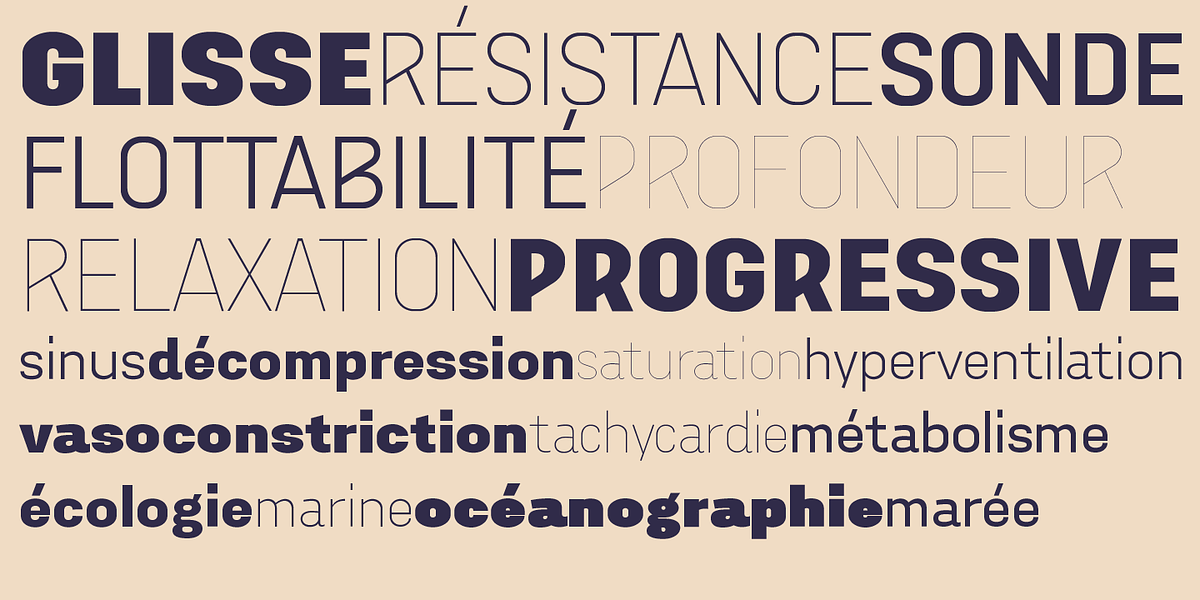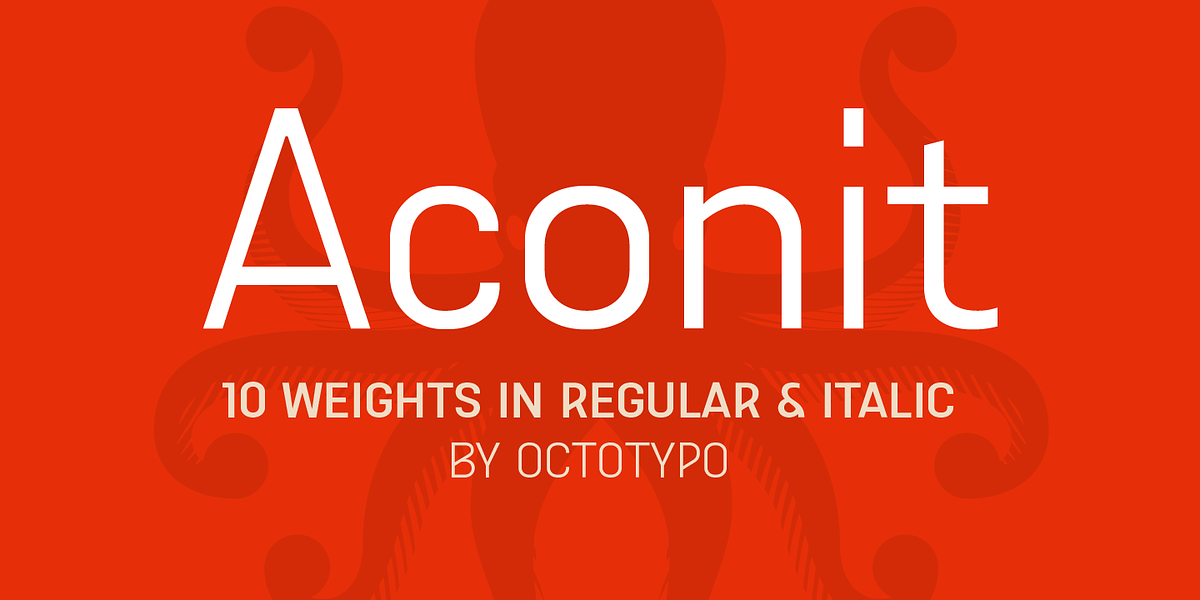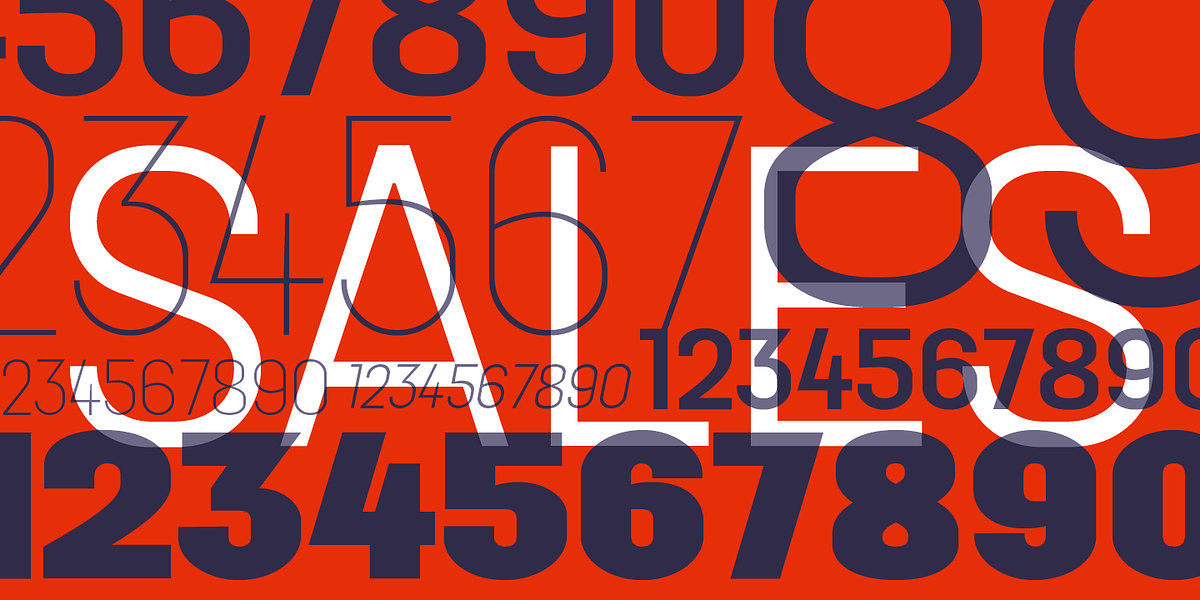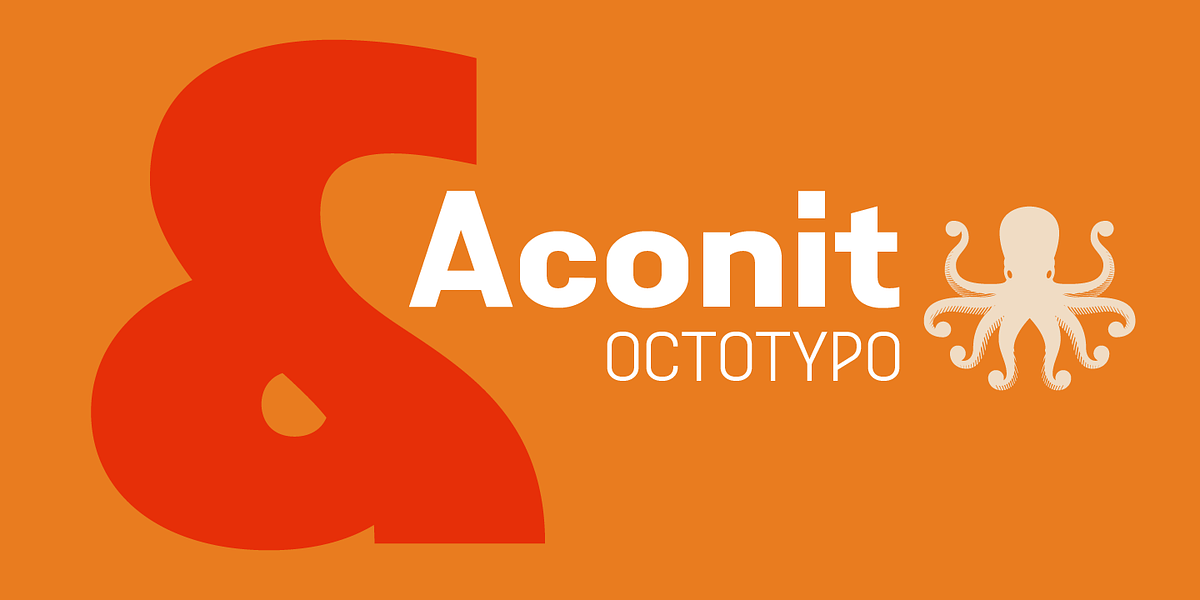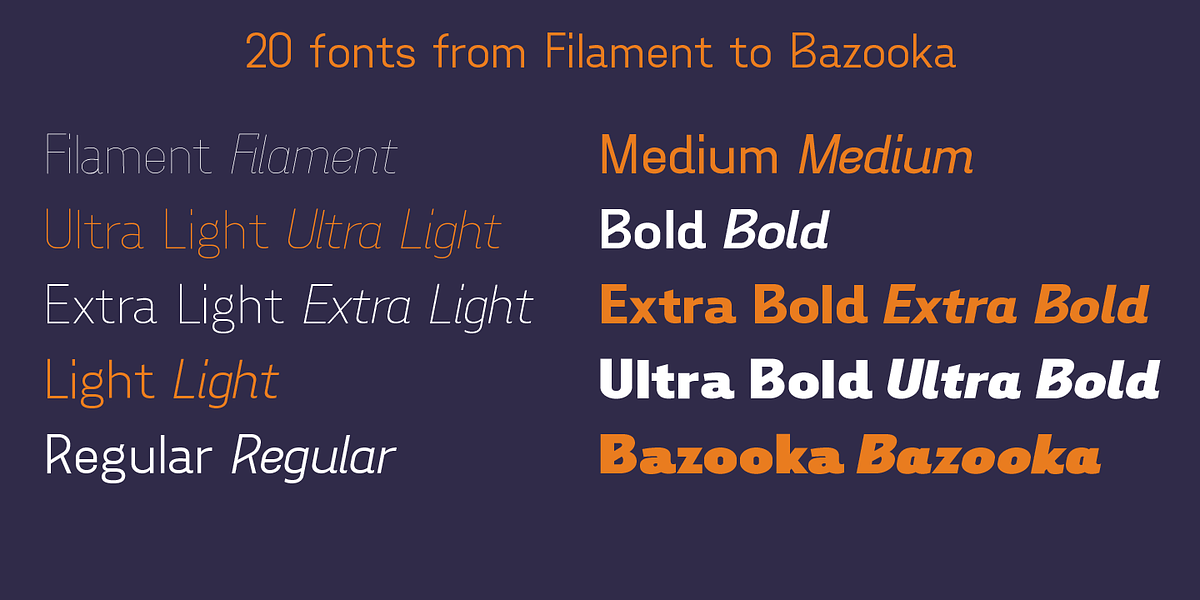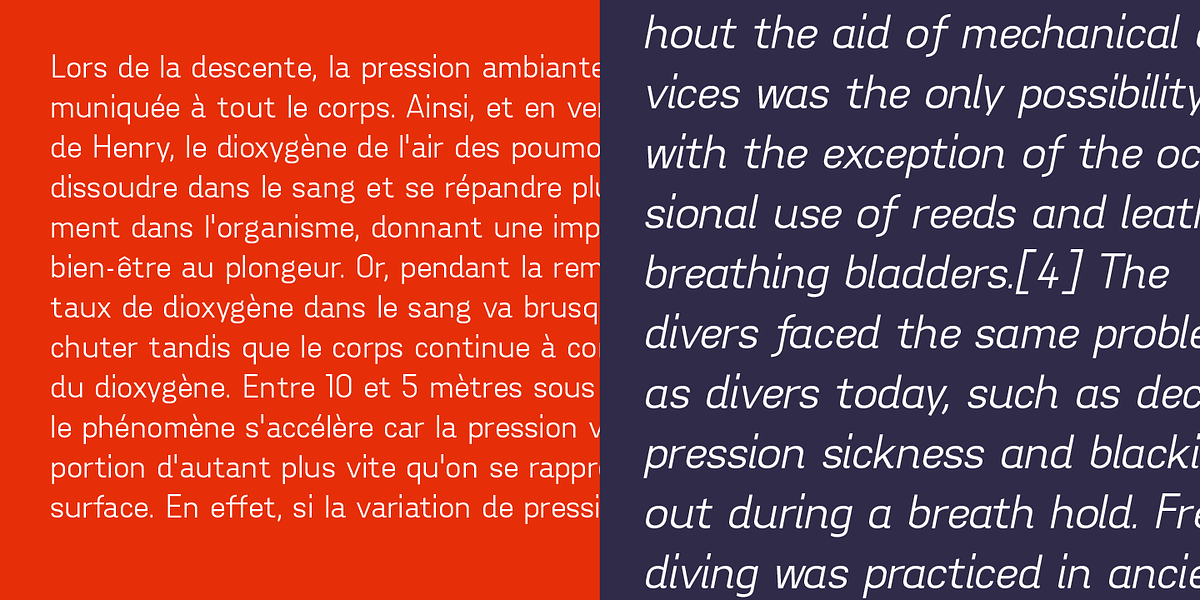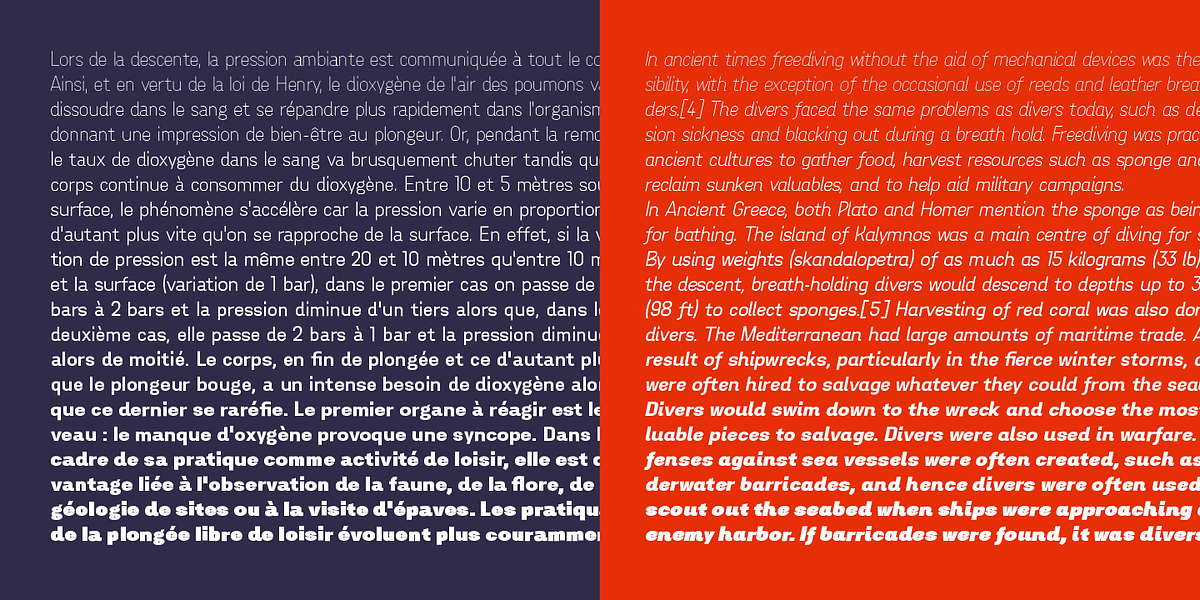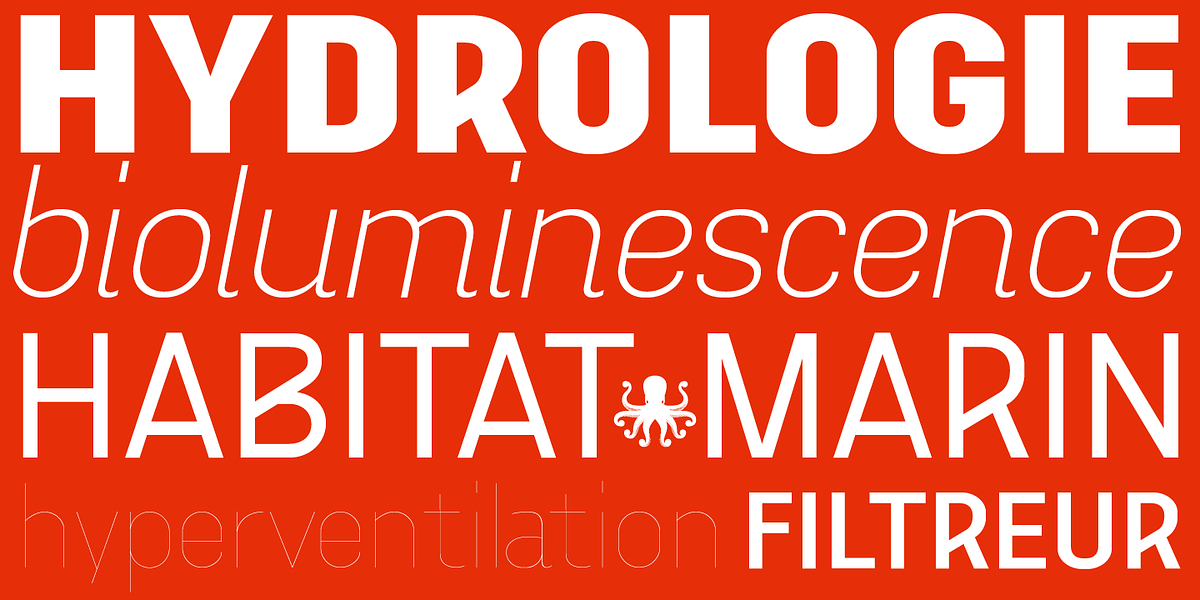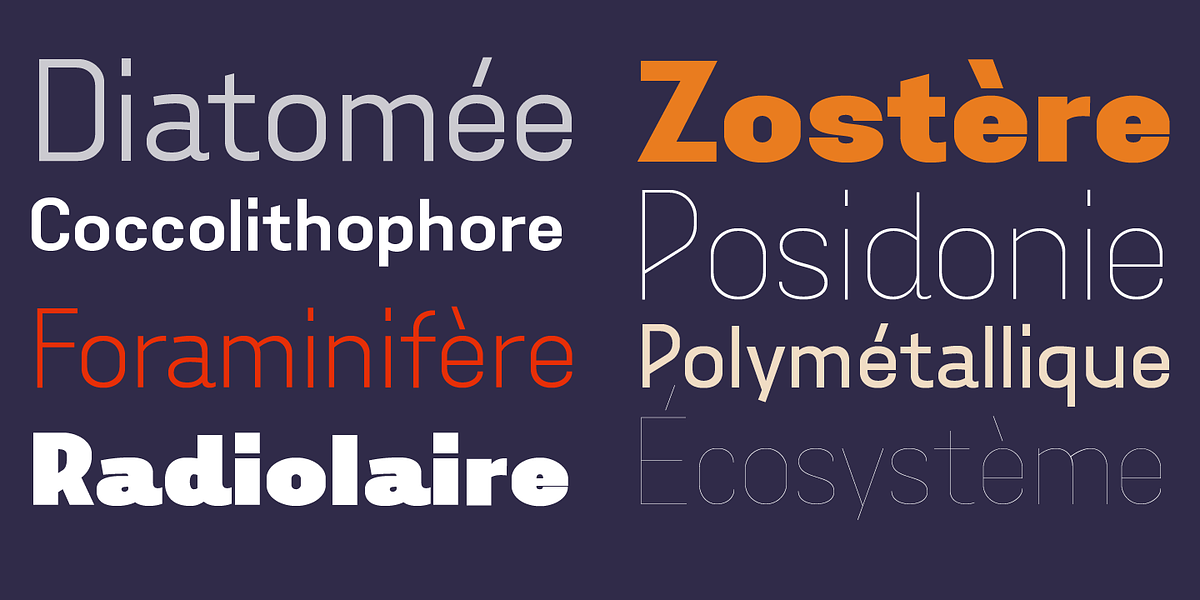
Aconit
Aconit is a modern sans serif font family characterized by its geometric forms and wide range of weights. It's designed to be versatile, suitable for both text-heavy applications like web content and display uses such as posters and signage. The inclusion of arrows further expands its usability.